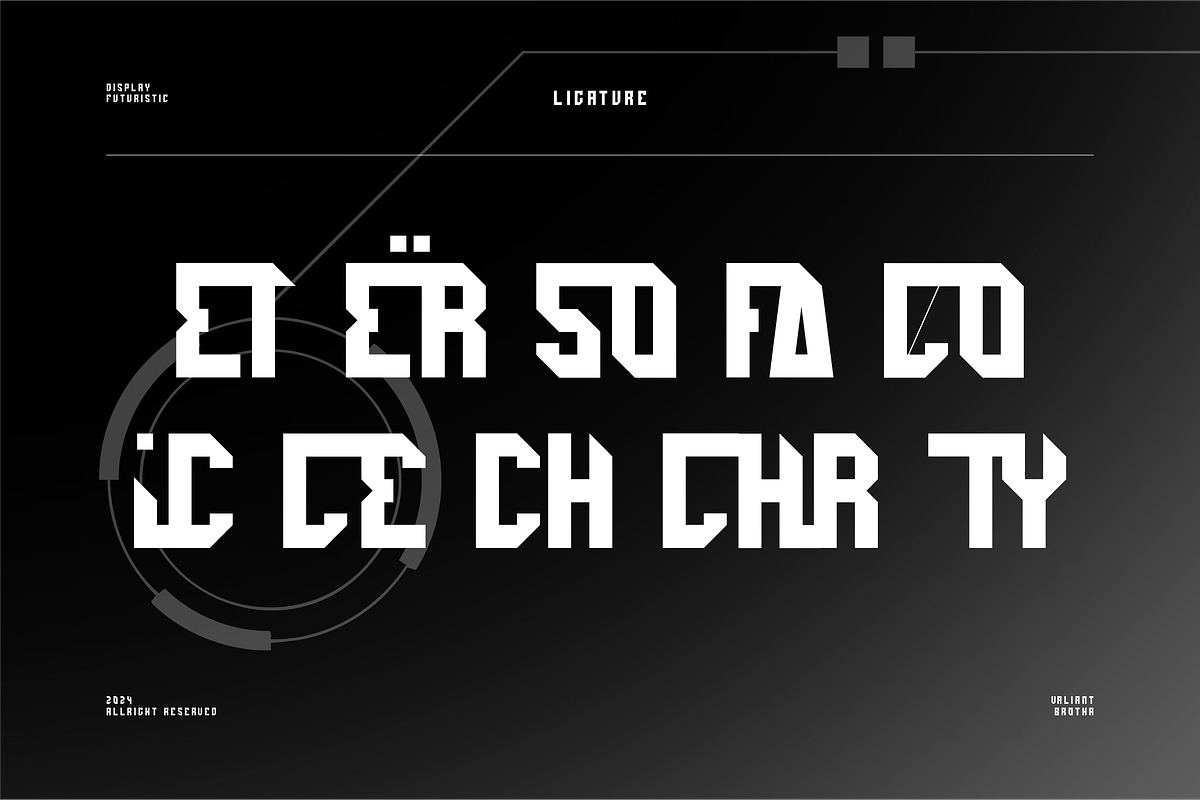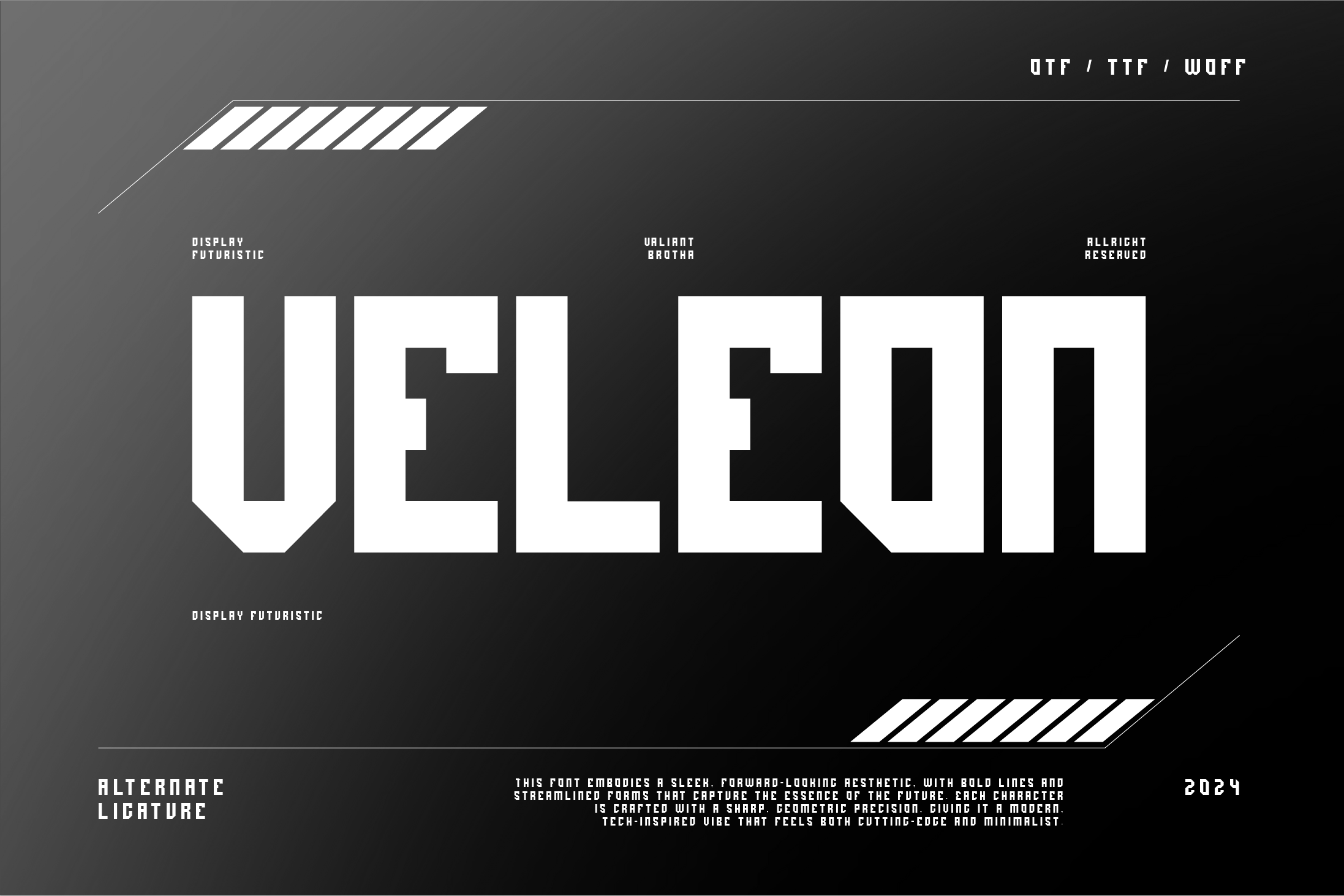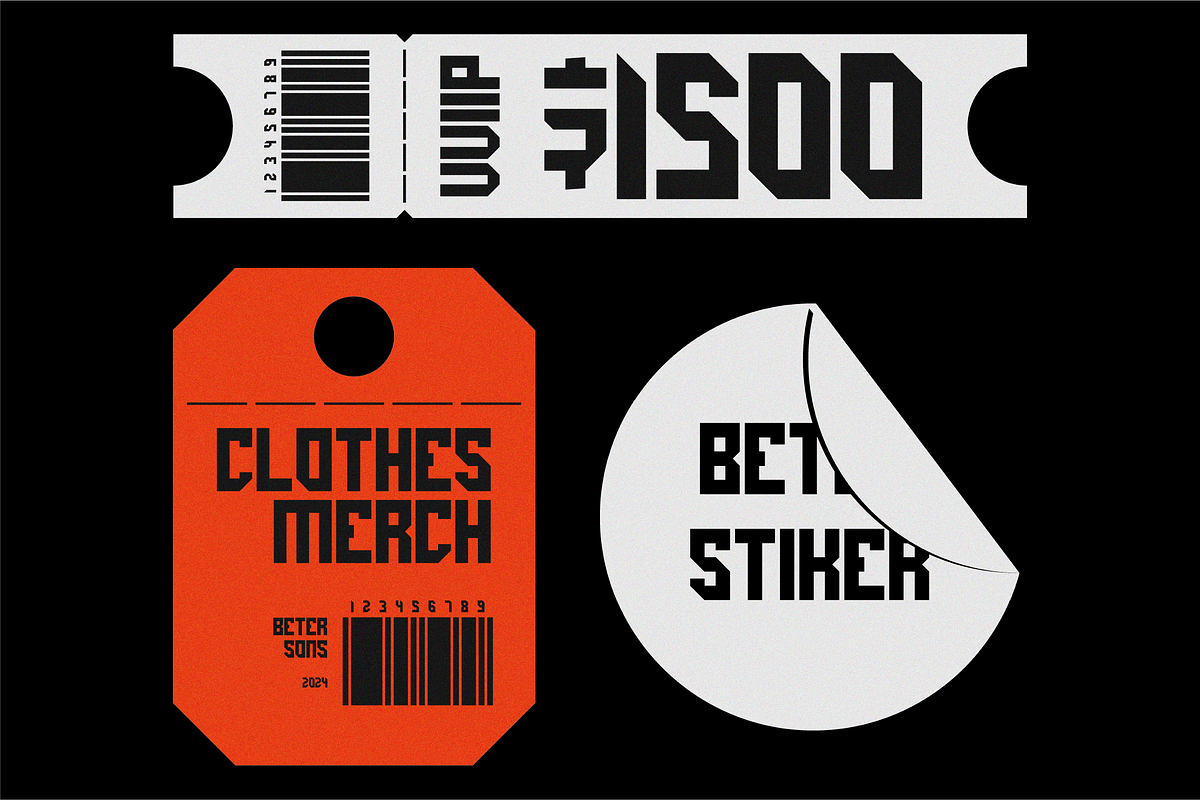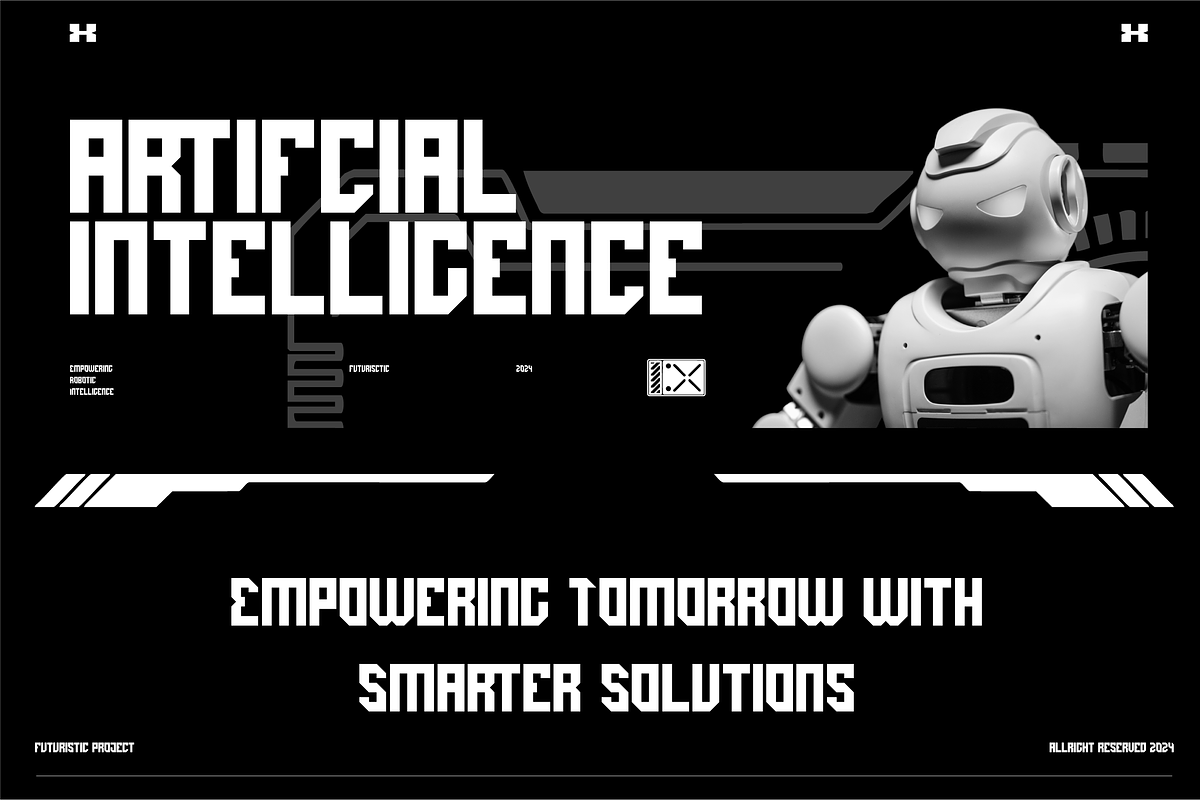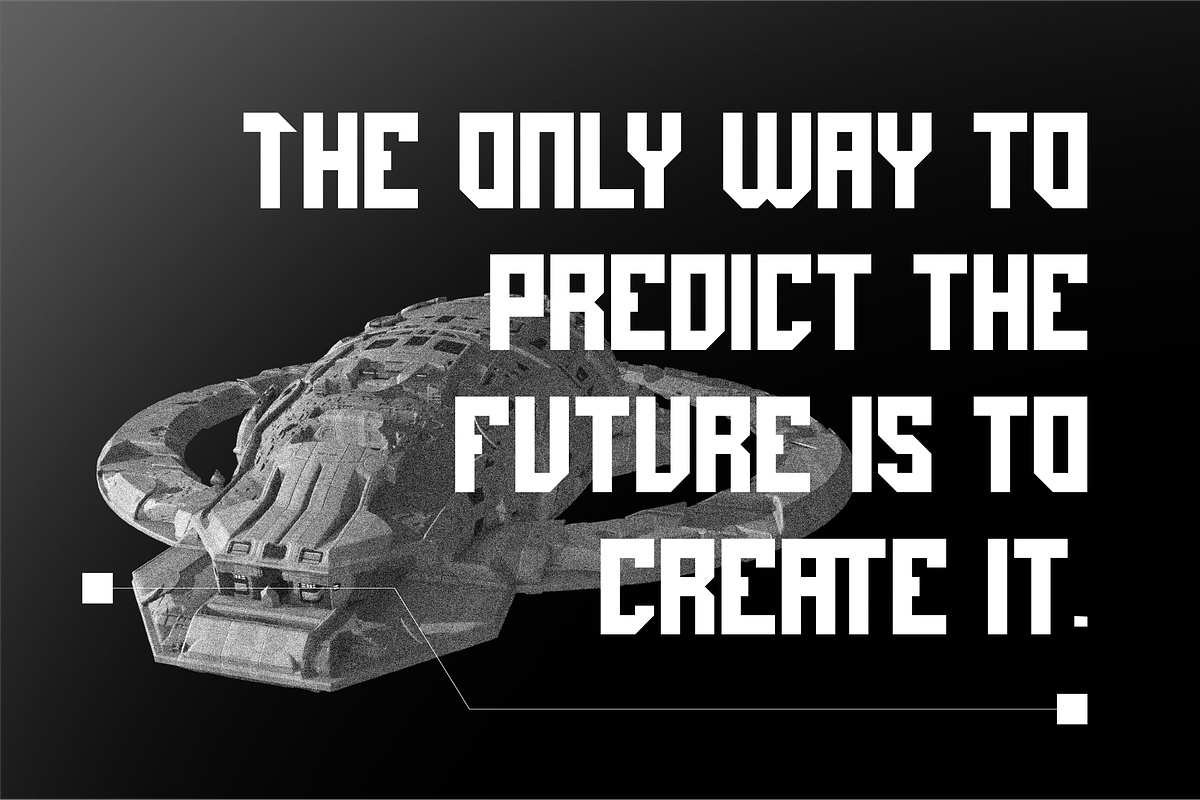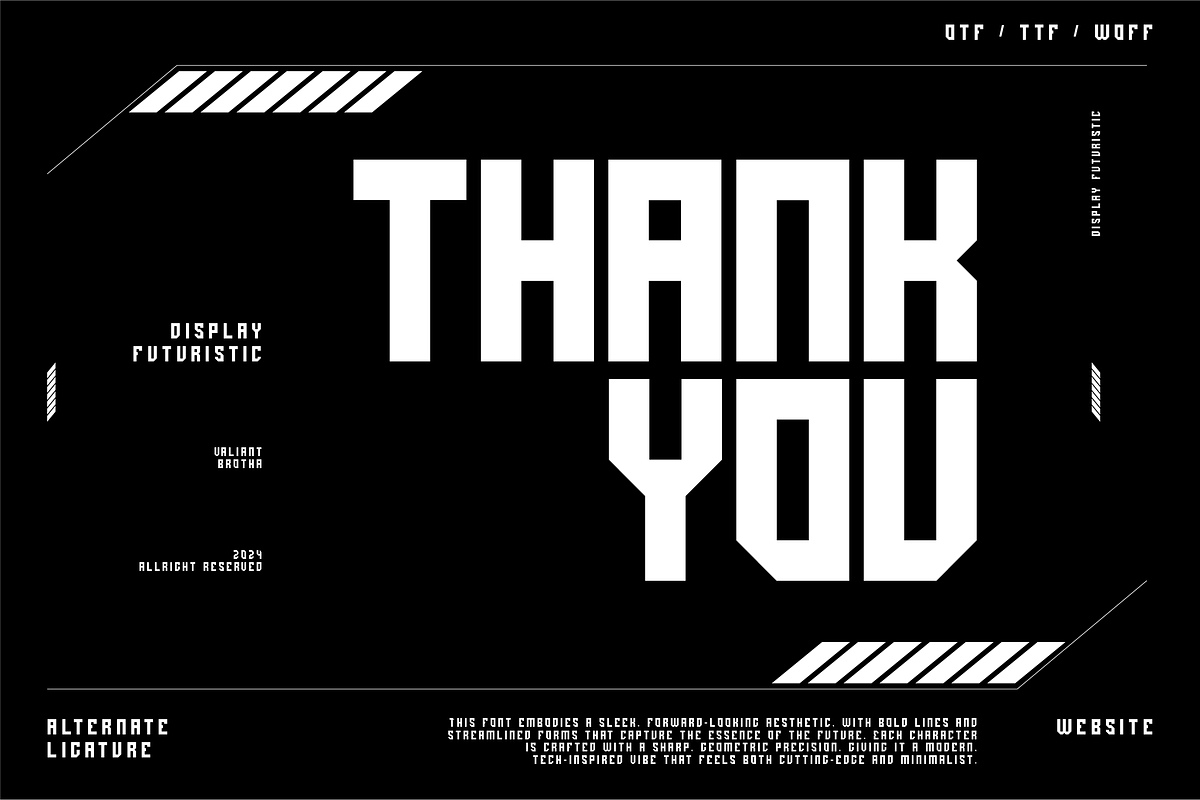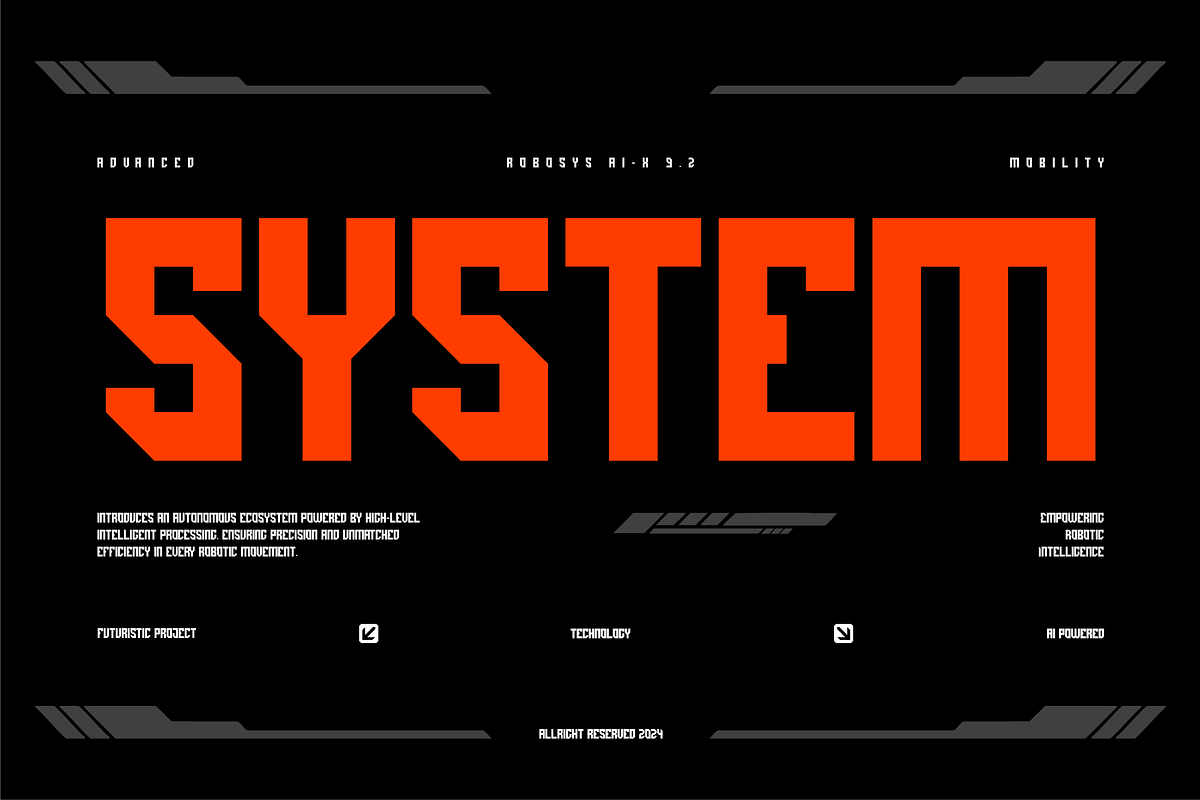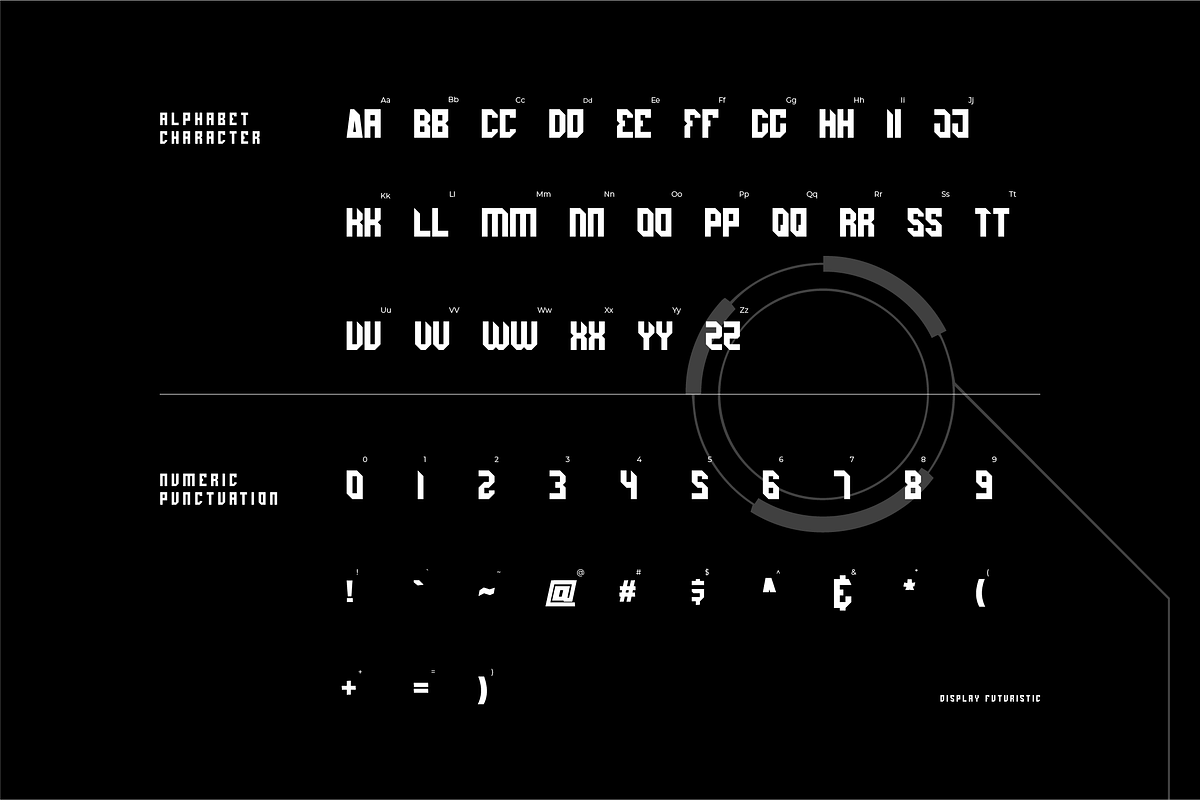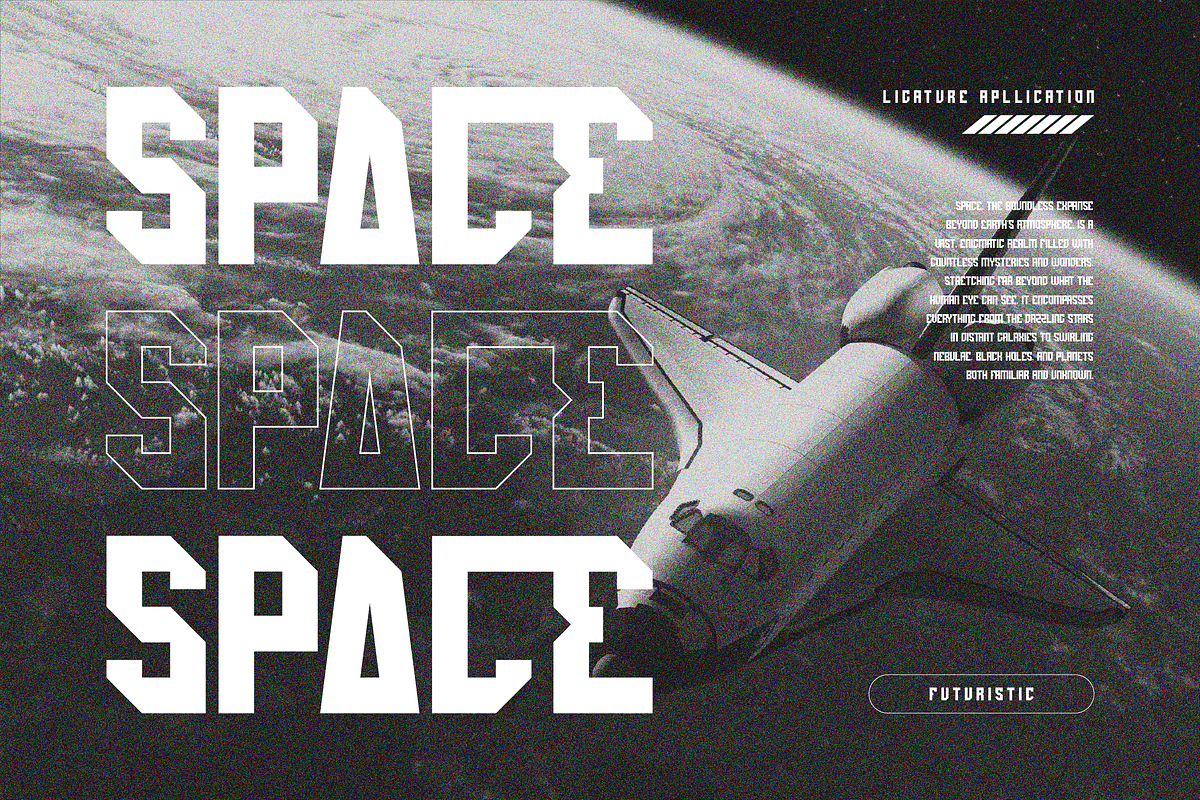
VB Veleon - Futuristic Font
Veleon is a bold and dynamic display typeface designed to push the boundaries of modern design. With its futuristic and techno-inspired aesthetic, Veleon features sharp, clean lines, and angular forms that convey a sense of cutting-edge technology and innovation.